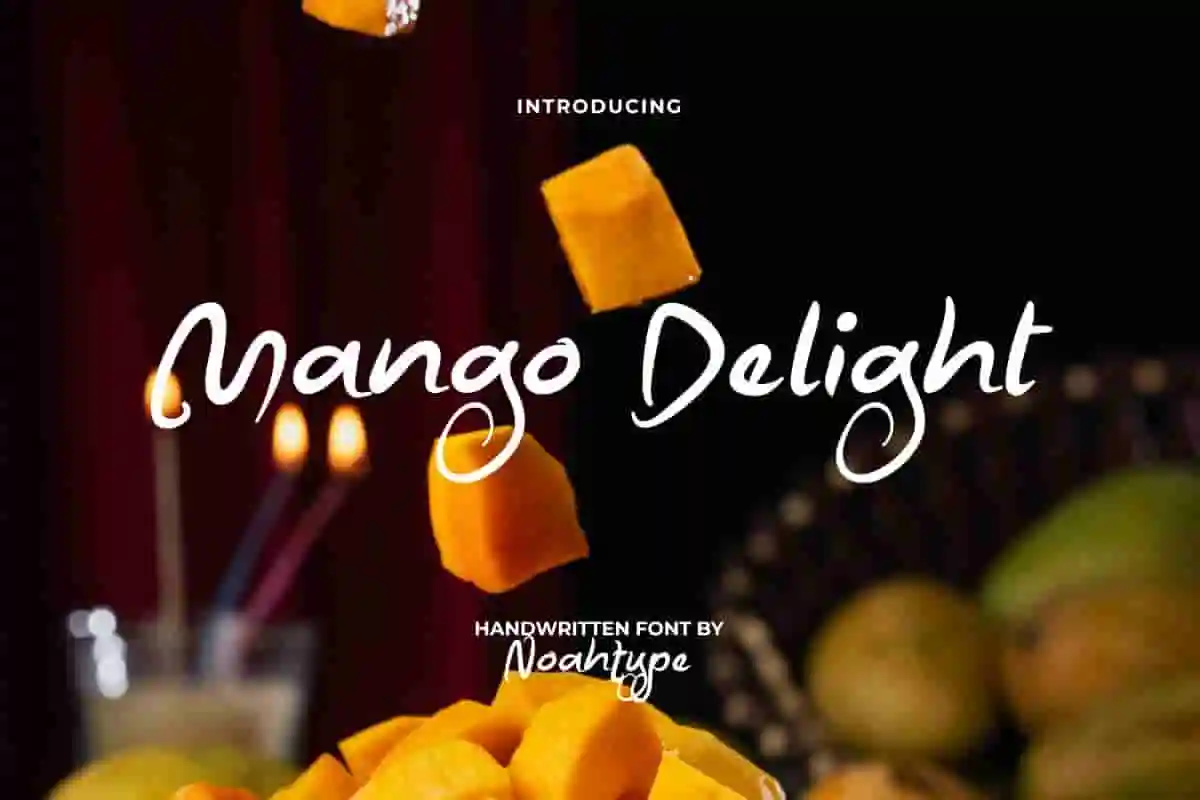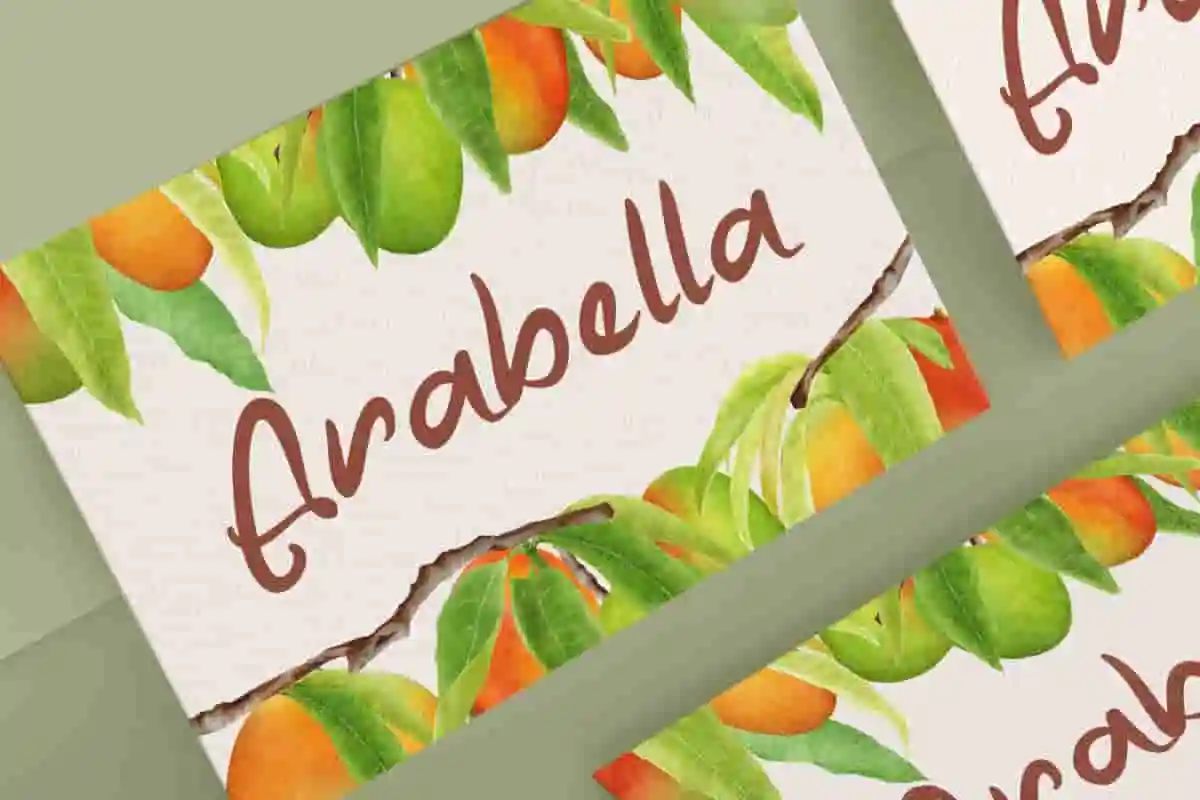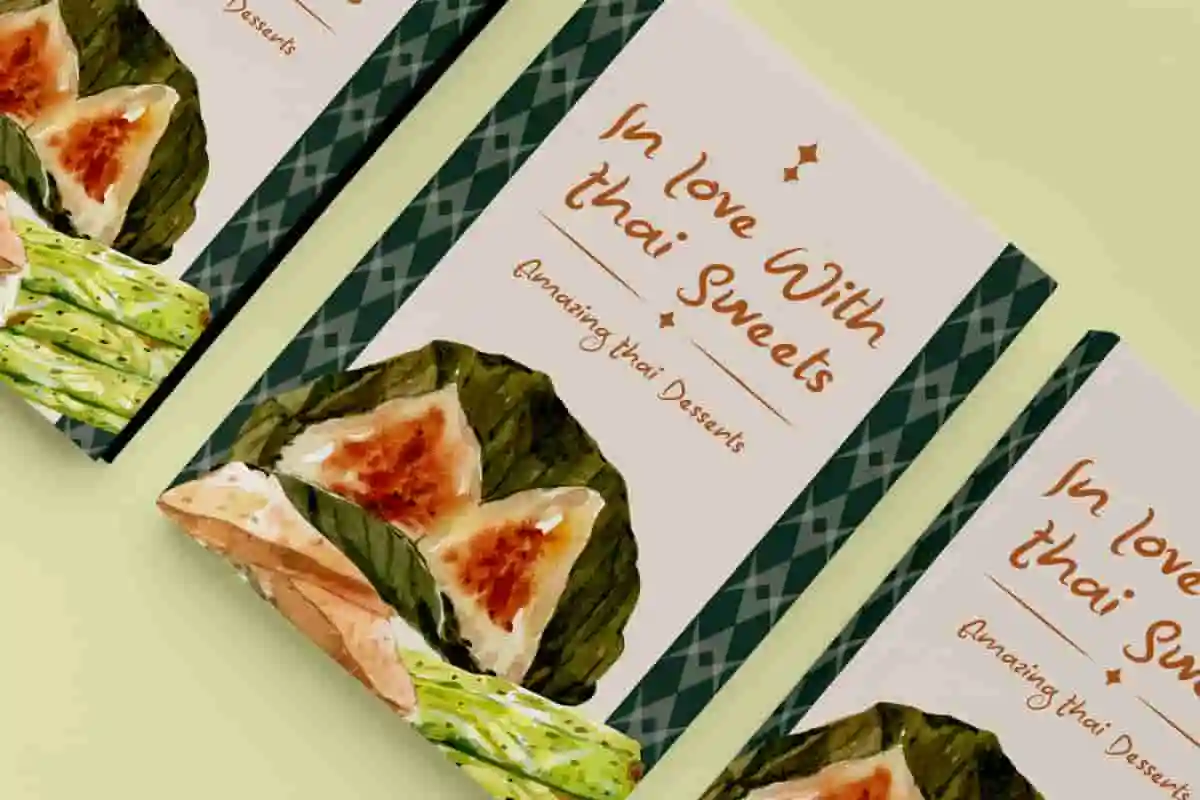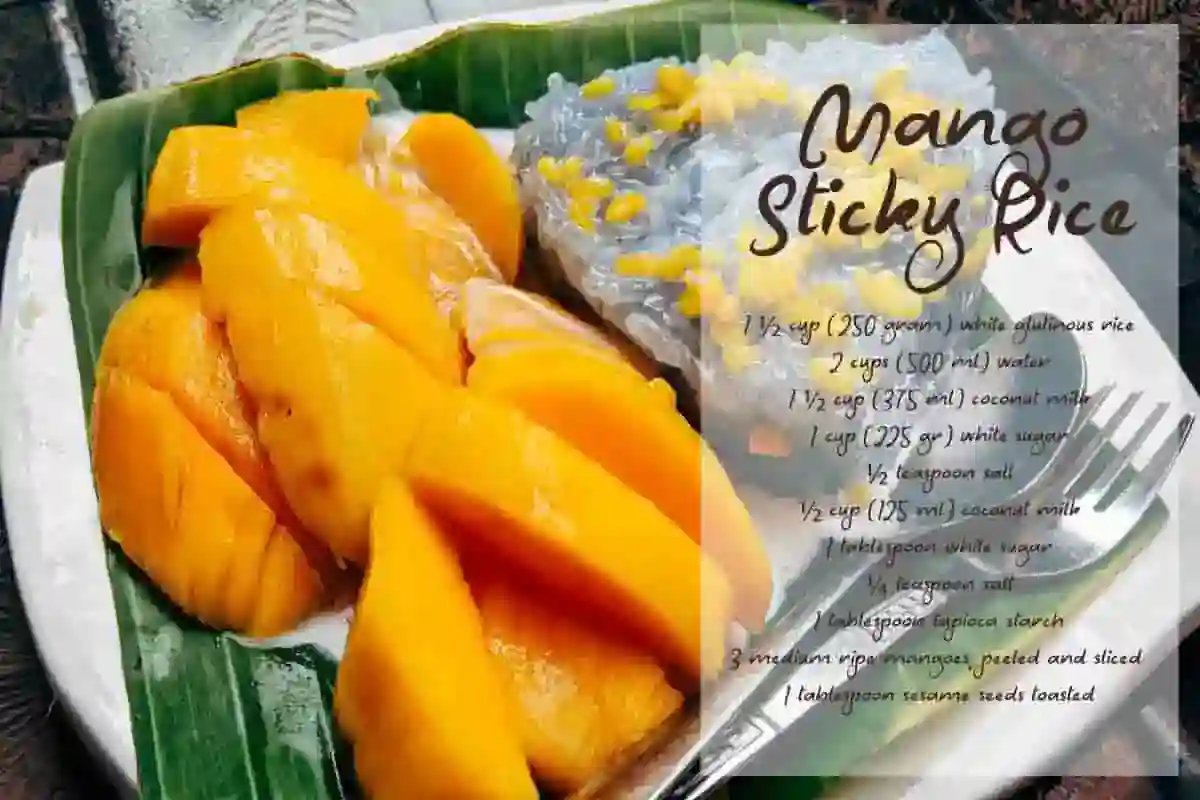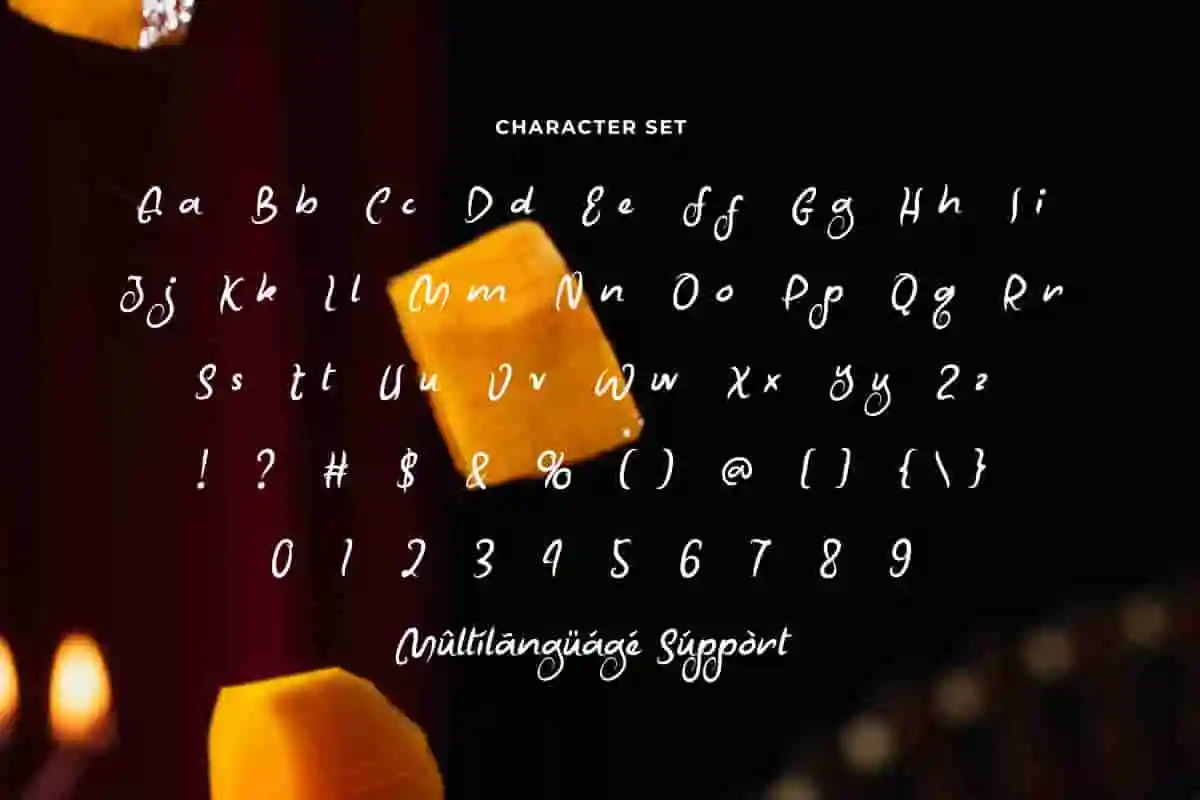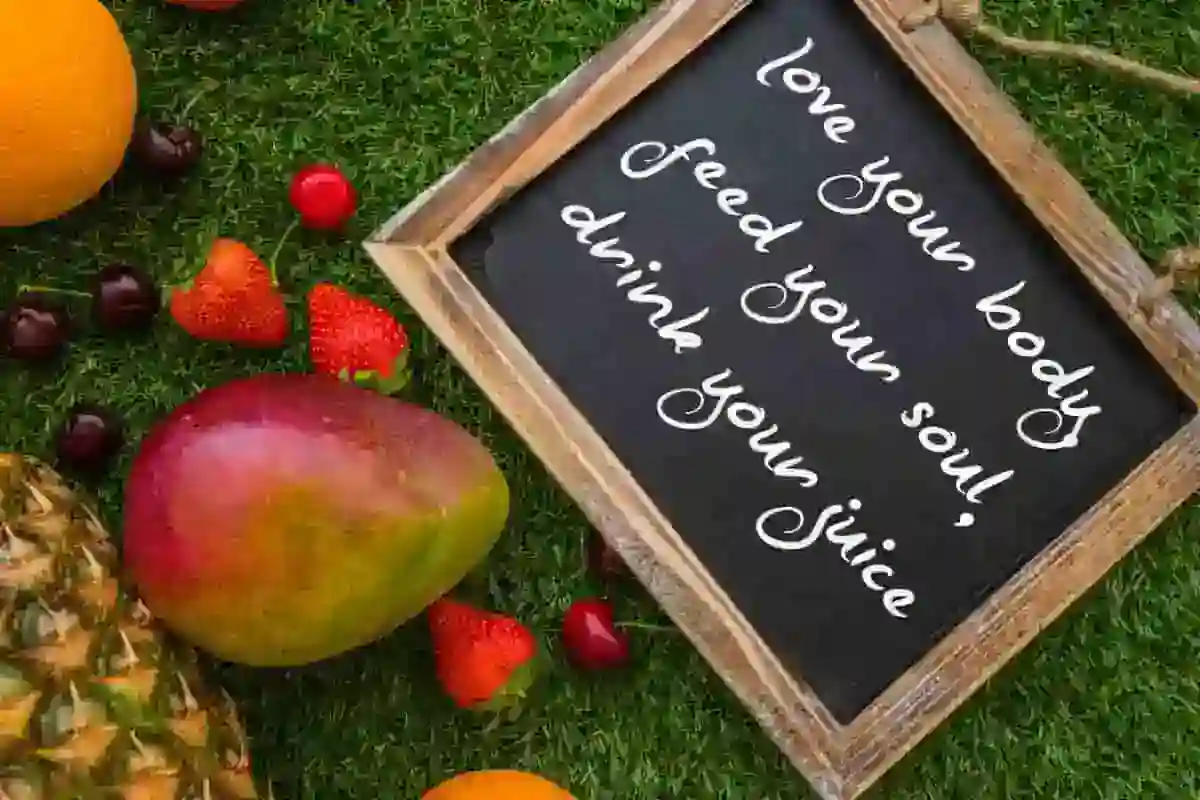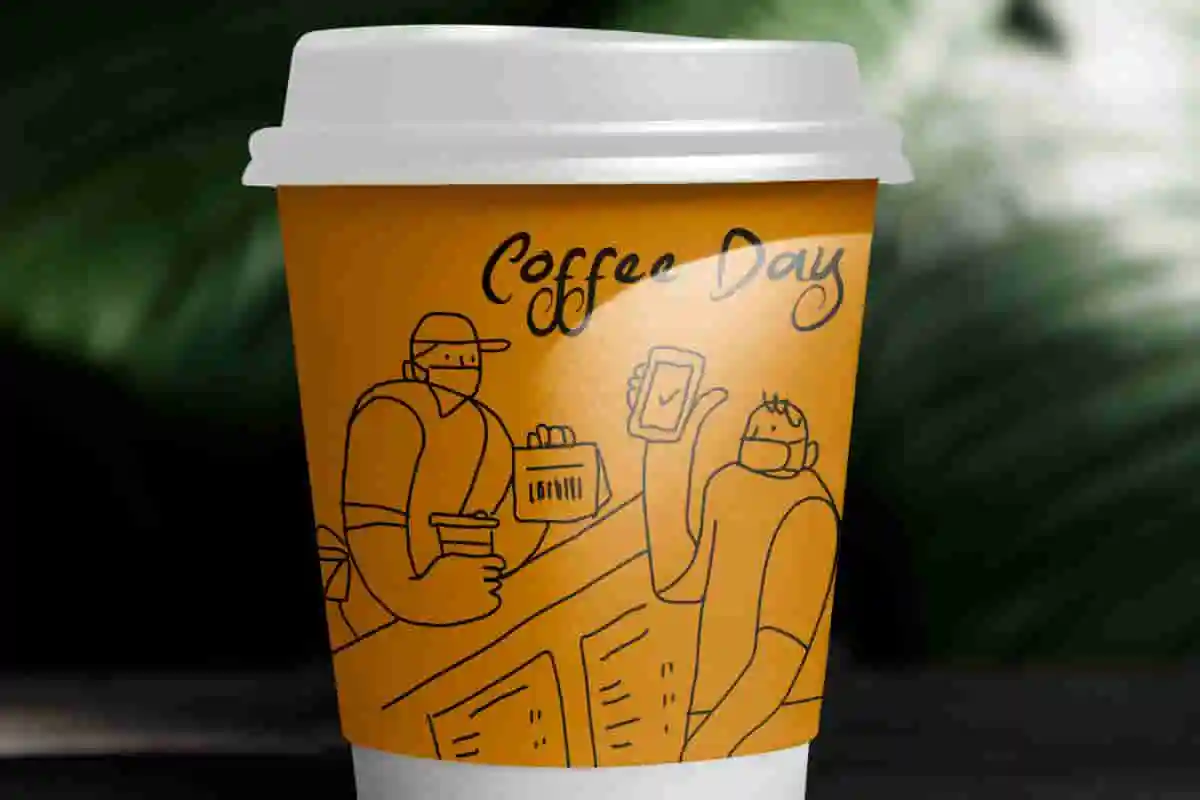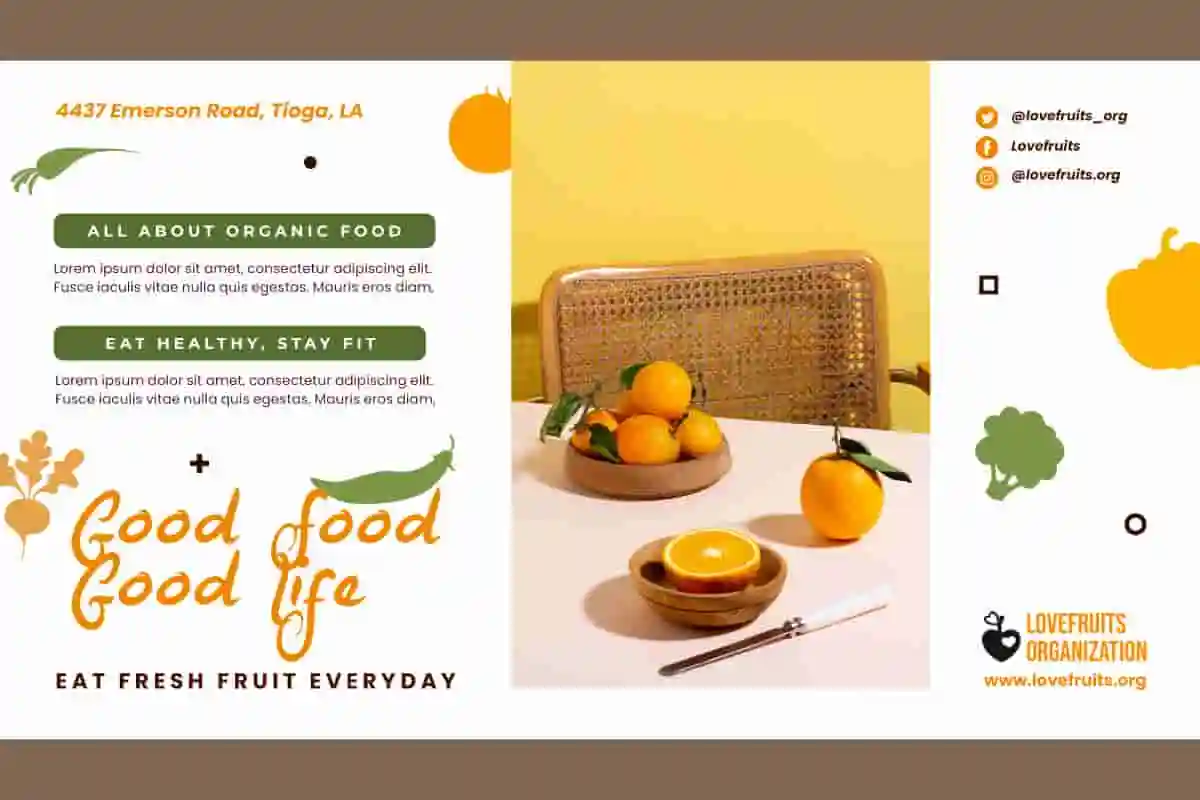
Mango Delight Font is a unique stylish brush written font created by NoahType. Every stroke made for this font is used with care and aesthetics, you can find it on the line that hangs down like a mango shape. It will be suitable for any industries, such as advertisement, café, event or festival, fashion, florist, printing, publishing, restaurant, and more!
Mango Delight Font includes full set of Uppercase and Lowercase Basic Characters, Numerals, Punctuation, and Symbol. Get inspired and use this fresh font in your various designs, such as brand image, brochure, custom design, gift box, greeting card, label, menu, poster, quote, screen printing, website, and more!